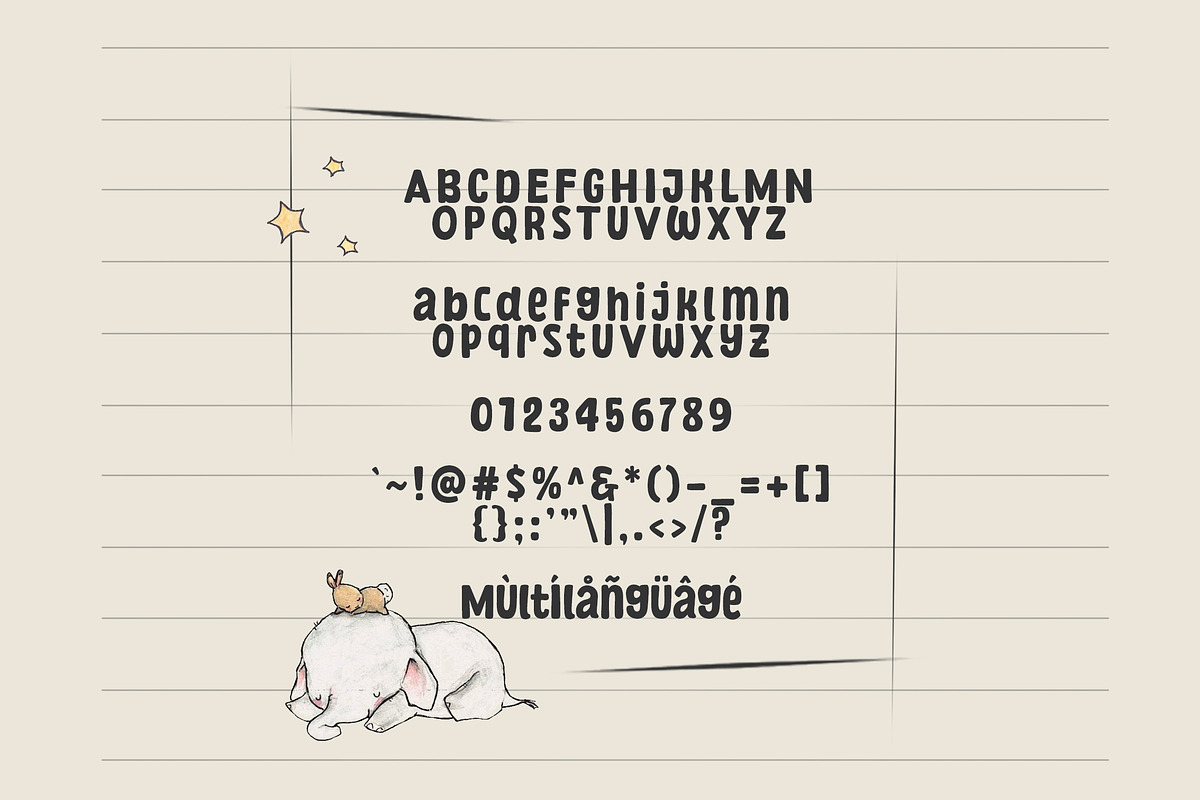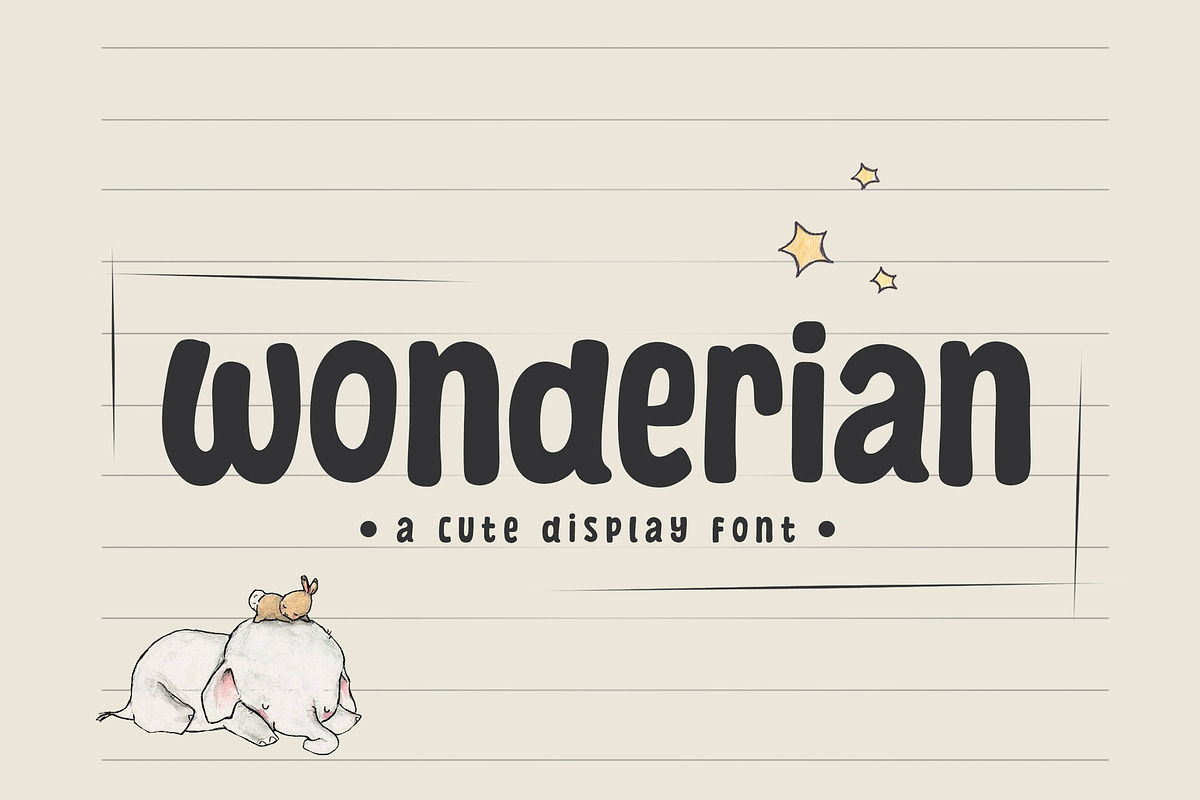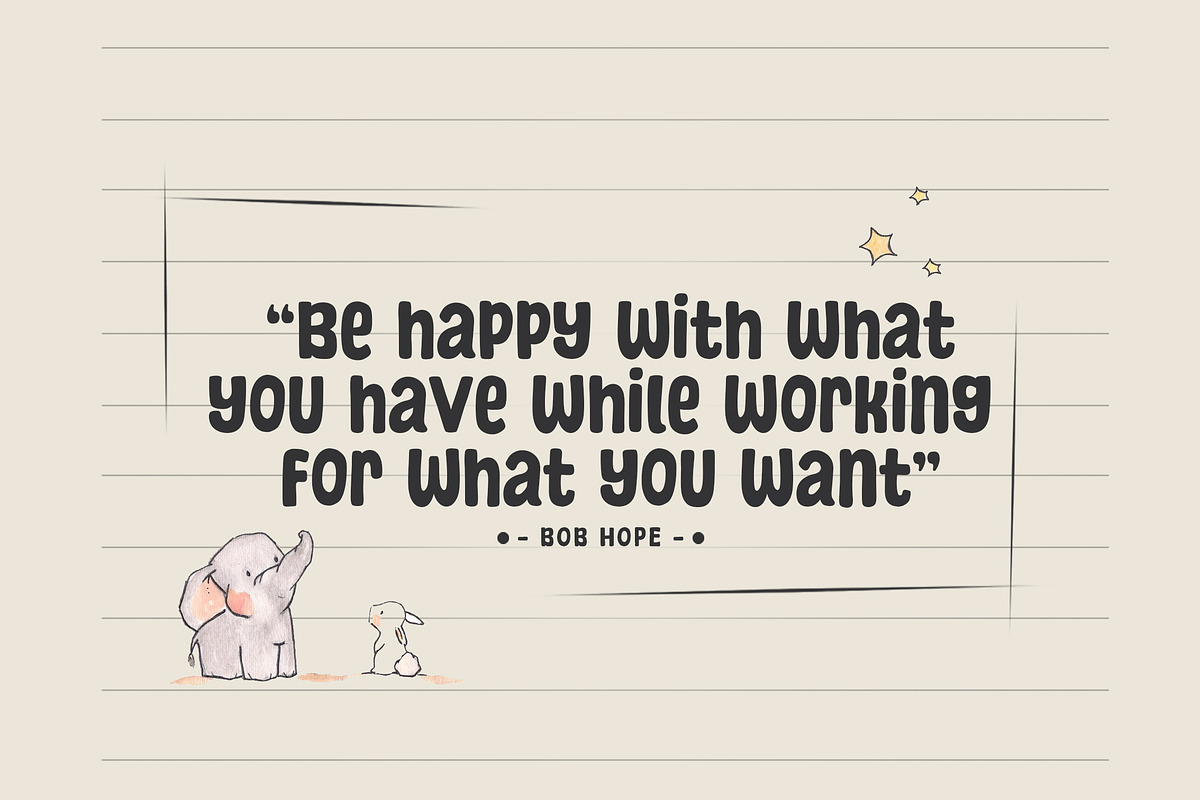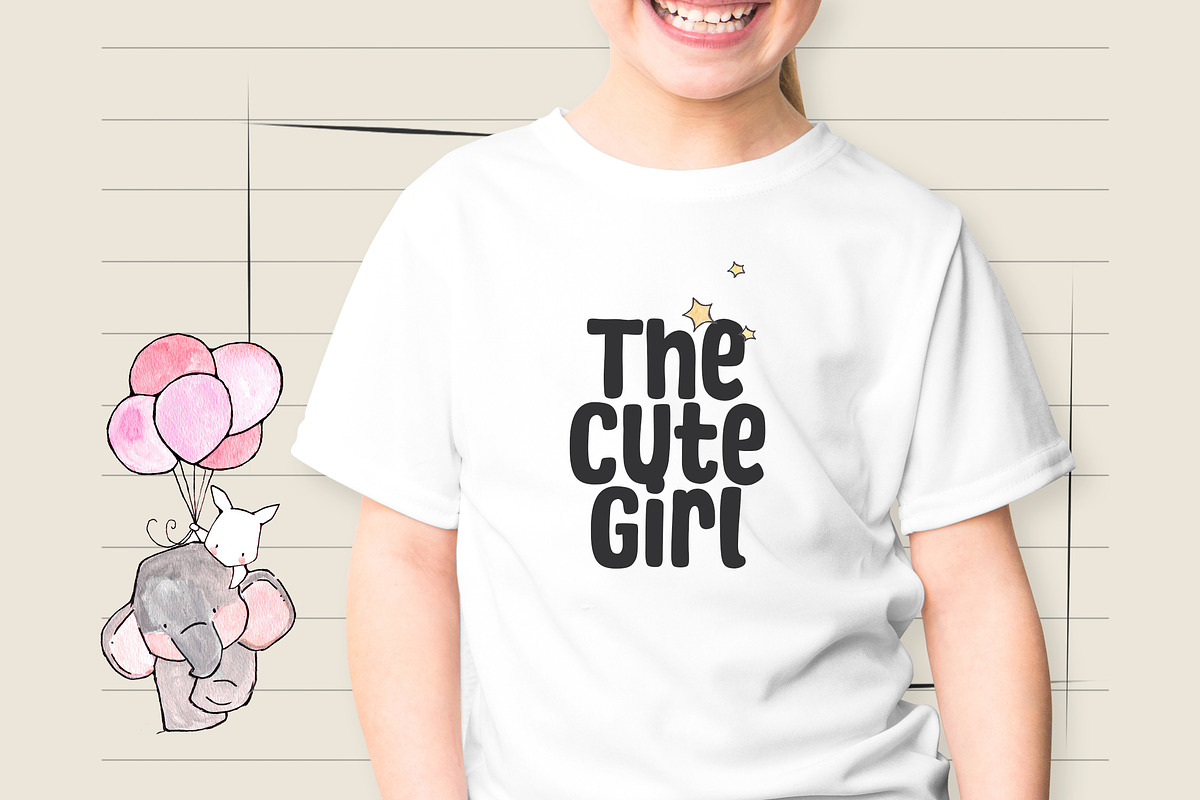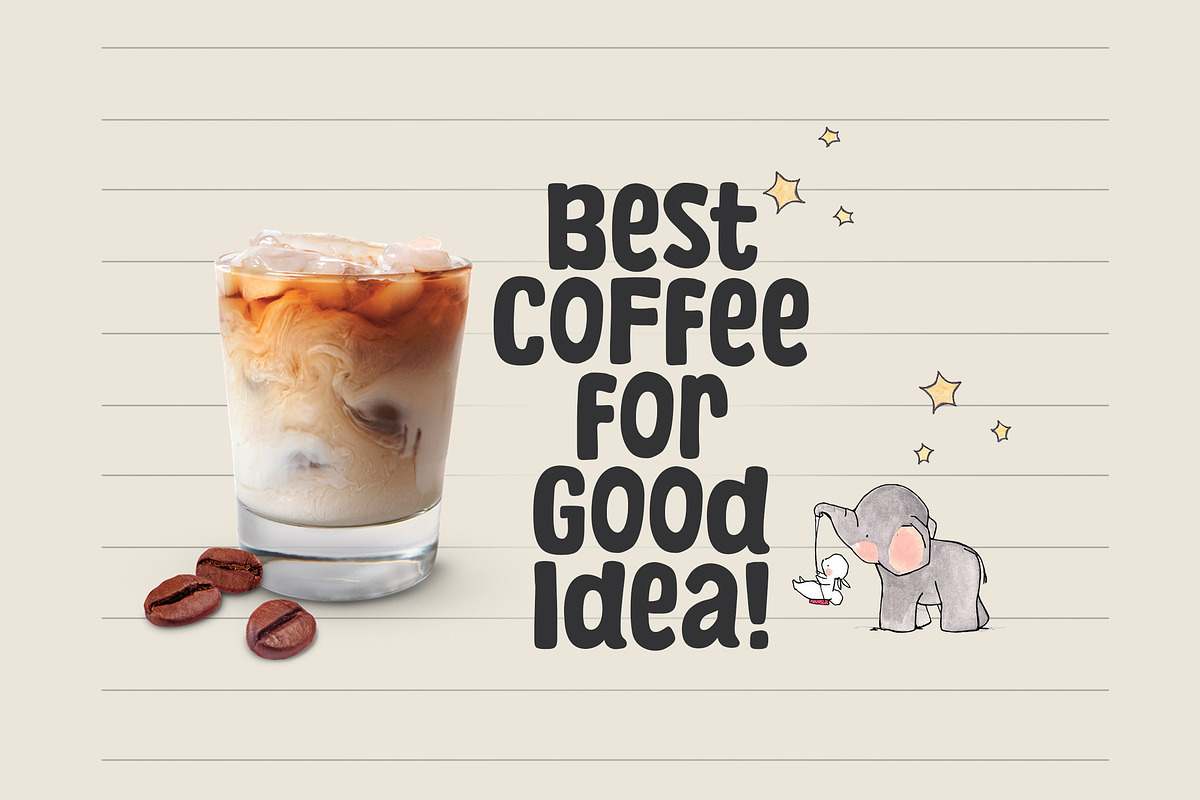
Wonderian
Introducing, Wonderian font a fun display typeface with cheerful theme for your fun project. Wonderian font suitable for logo, branding, greeting card, poster and any design that you create.